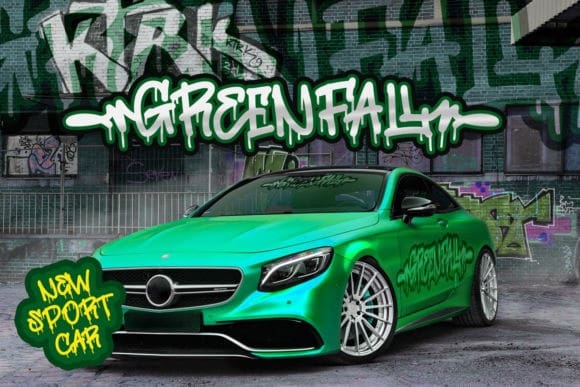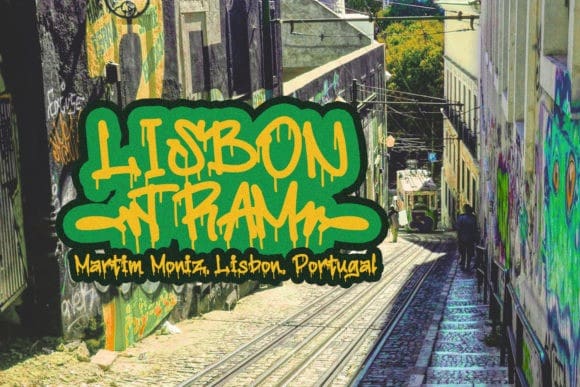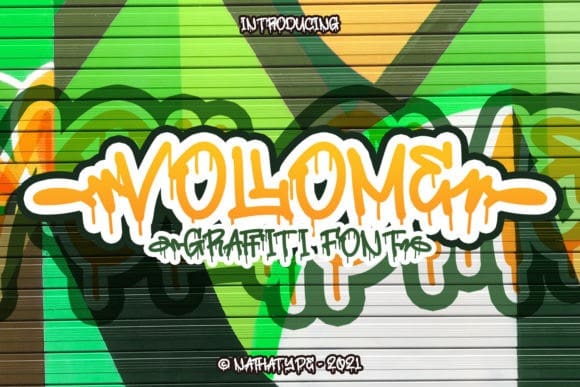
Vollome Display Font
Vollome Display Font, is a dramatic, creepy styled display font, that features a street art vibe. This font is suitable for designs like jerseys, sportswear, skateboard and more.